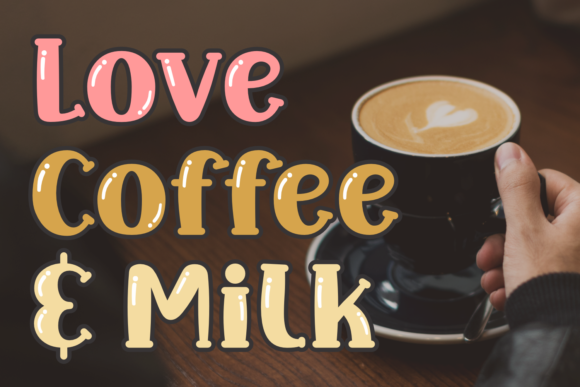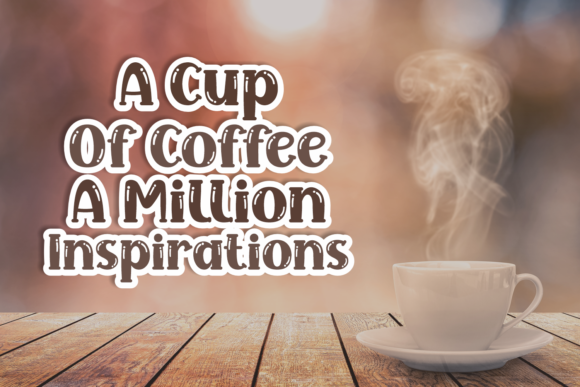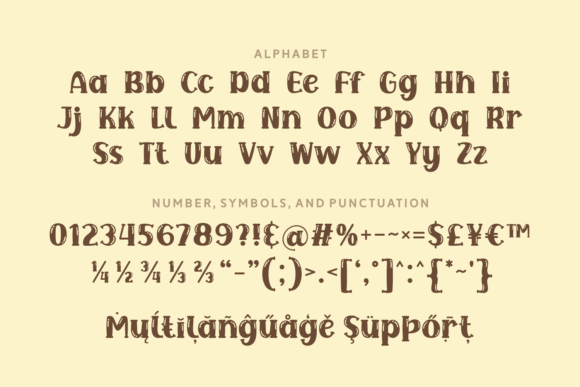
Boba Choco Font: The Fun and Creative Display Font for Your Design Needs
Are you looking for a font that can add a touch of fun and playfulness to your designs? Look no further than the Boba Choco font! This lovely typeface features bubbly characters and a cartoonish style with a 3D feel that’s perfect for a variety of design projects. In this article, we’ll take a closer look at the Boba Choco font, its features, and how you can use it to elevate your designs.
What is Boba Choco Font?
Boba Choco is a fun and creative display font that’s designed to bring a smile to your face. Its bubbly characters and cartoonish style make it perfect for designs that need a playful touch. The font features a 3D feel that gives it a unique and eye-catching appearance. Whether you’re designing for kids or adults, the Boba Choco font is sure to delight.
Key Features of Boba Choco Font
So, what makes the Boba Choco font so special? Here are some of its key features:
- Bubbly Characters: The Boba Choco font features bubbly characters that are sure to add a touch of fun to your designs.
- Cartoonish Style: The font’s cartoonish style makes it perfect for designs that need a playful touch.
- 3D Feel: The font’s 3D feel gives it a unique and eye-catching appearance.
- High-Quality Design: The Boba Choco font is designed with high-quality graphics, making it perfect for printing and digital use.
Use Cases for Boba Choco Font
The Boba Choco font is versatile and can be used for a variety of design projects, including:
- Kids’ Clothing Stores: The font’s playful style makes it perfect for kids’ clothing stores, adding a fun touch to product labels and marketing materials.
- Music and Movies: The Boba Choco font can be used to create eye-catching posters and promotional materials for music and movie events.
- Posters and Magazines: The font’s bold and playful style makes it perfect for posters and magazine covers.
- Quotes and Fashion Branding: The Boba Choco font can be used to create inspiring quotes and fashion branding materials that stand out.
Why Choose Boba Choco Font?
So, why should you choose the Boba Choco font for your design needs? Here are some reasons:
- Unique Style: The Boba Choco font has a unique style that’s sure to make your designs stand out.
- Easy to Read: The font is easy to read, making it perfect for use in a variety of design projects.
- High-Quality Design: The font is designed with high-quality graphics, making it perfect for printing and digital use.
- Versatile: The Boba Choco font can be used for a variety of design projects, making it a great addition to your font library.
Tips for Using Boba Choco Font
Here are some tips for using the Boba Choco font in your designs:
- Use it for Headings: The Boba Choco font is perfect for use in headings and titles, adding a touch of fun and playfulness to your designs.
- Pair it with Other Fonts: The Boba Choco font can be paired with other fonts to create a unique and eye-catching design.
- Experiment with Colors: The font’s bold and playful style makes it perfect for use with bright and bold colors.
In conclusion, the Boba Choco font is a fun and creative display font that’s perfect for a variety of design projects. Its bubbly characters, cartoonish style, and 3D feel make it a great addition to your font library. With its high-quality design and versatility, the Boba Choco font is sure to delight designers and crafters alike. So, why not give it a try and add a touch of fun and playfulness to your designs?